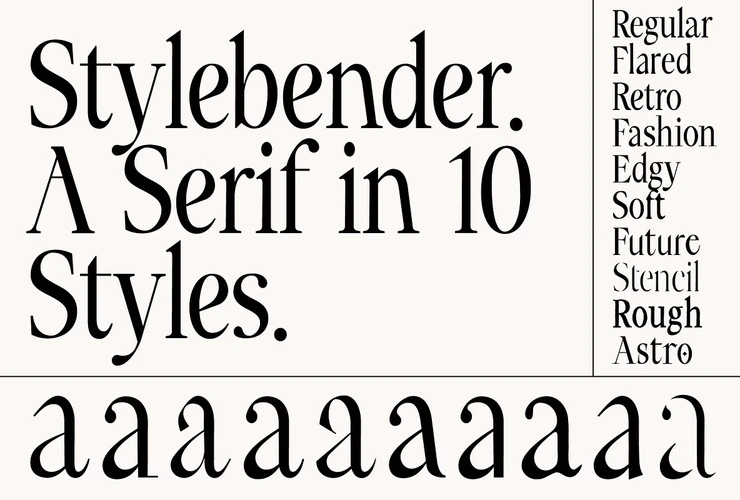
Stylebender: The Most Versatile Serif Font in Typography
Stylebender Serif is a remarkable multi-style font collection that offers unparalleled versatility in the world of typography. Created by NewTropical, this font family is designed to cater to a wide range of creative needs, from heavy metal posters to chic wordmarks, and from fashion magazine mastheads to farmers market tote bags. Stylebender stands out for its ability to adapt to various styles and themes, making it a must-have for designers seeking flexibility and creativity in their work.
A Font for Every Style
Currently available in 10 unique styles—Regular, Astro, Edgy, Fashion, Flared, Future, Retro, Rough, Serifless, and Soft—Stylebender offers a wide spectrum of design possibilities. Each style brings its own personality and flair, allowing designers to choose the perfect font for their specific project. Whether you’re aiming for a modern, retro, or even a whimsical look, Stylebender has you covered.
Features and Flexibility
Why Choose Stylebender?
Versatility: Perfect for a wide range of applications, from posters and logos to magazine mastheads and tote bags.
Future-Proof: Continuous updates and new styles keep the font relevant and versatile.
International Support: Includes non-English glyphs for global usability.